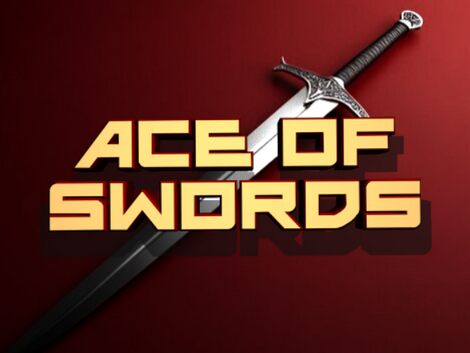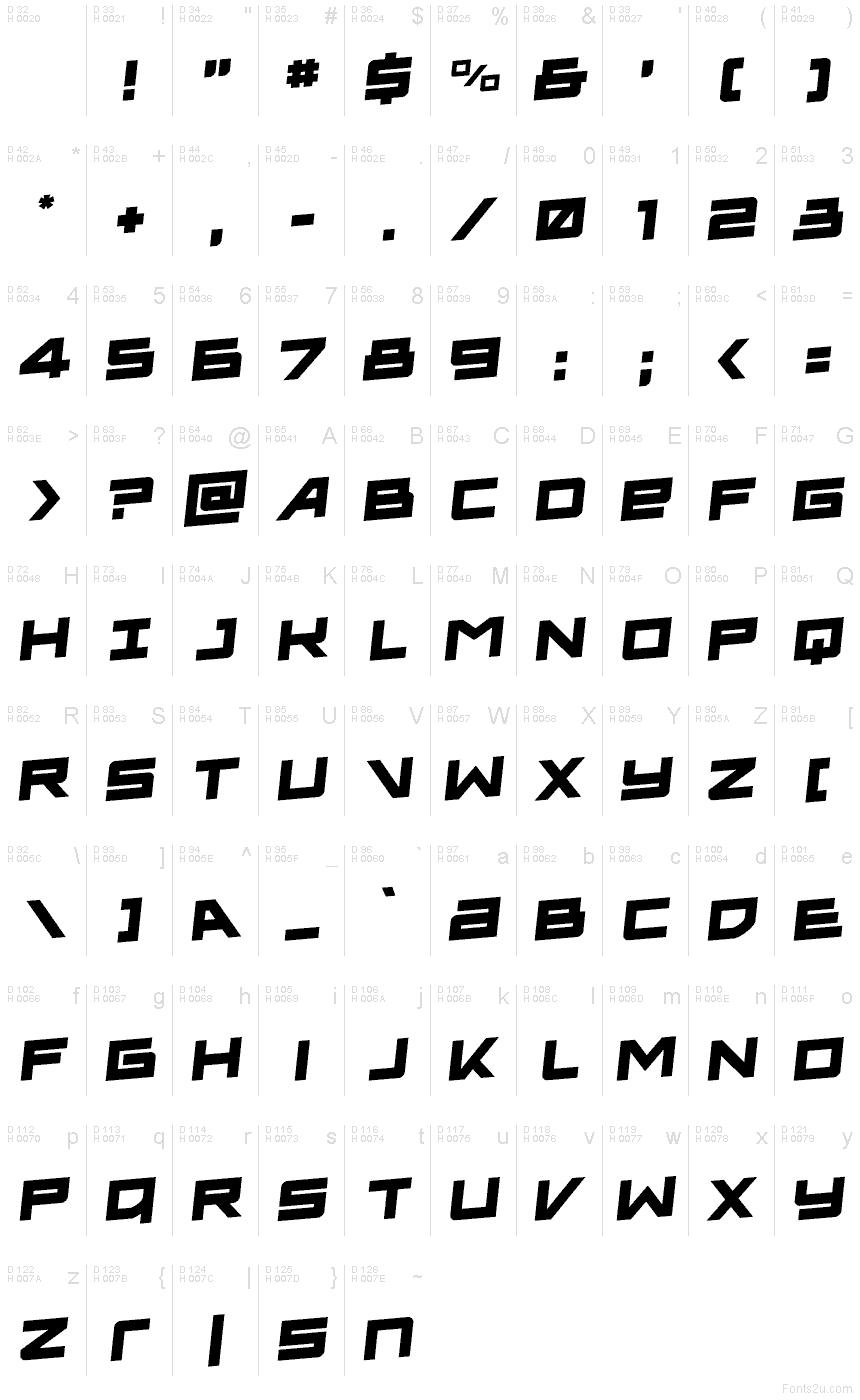
Ace of Swords Rotalic
Ace of Swords Rotalic font by Iconian Fonts is a free techno display typeface that looks like it’s been cut from metal and thrown forward at full speed. The sharp, slashed angles and aggressive italic stance give every word a sense of motion, like a logo frozen mid-attack. Thick, compact forms keep it bold and legible even at a distance, while the staggered, almost shattered rhythm adds just enough chaos to feel dangerous and futuristic.
Using Ace of Swords Rotalic, you can brand gaming clans, esports teams, sci-fi posters, action movie titles, energy drink labels, and bold stream overlays with a consistent, high-impact voice. This free font shines on large headlines and logotypes; keep supporting text in a neutral sans-serif so the Ace of Swords typeface can handle the drama. Try it in all caps with tight tracking to push that high-speed, cut-through-the-noise effect even further.